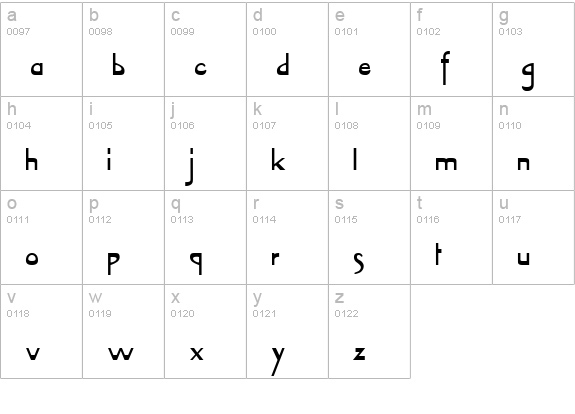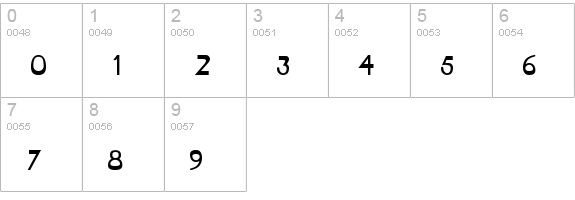
Tablet Bold is a strong, high-contrast variant in the Tablet typeface family \xE2\x80\x94 well suited to headlines, attention-grabbing titles, and strong calls-to-action.
Introducing Tablet Bold, the ultimate font choice for those seeking a modern and bold aesthetic. With its strong and commanding presence, Tablet Bold effortlessly captures attention and leaves a lasting impression. This versatile font is perfect for a wide range of design projects, from eye-catching headlines to impactful logos and branding materials. Tablet Bold exudes confidence and professionalism, making it an ideal choice for both digital and print media. Its clean lines and carefully crafted letterforms ensure legibility, while the bold weight adds an extra layer of impact. Whether used in a sleek website design or a high-quality print publication, Tablet Bold will elevate your project to new heights. What sets Tablet Bold apart is its availability for free download at FontsMarket.com. Yes, you read that right! This stunning font can be yours, completely free of charge. FontsMarket.com, a trusted source for high-quality fonts, is proud to offer Tablet Bold to designers and creatives worldwide, enabling them to bring their visions to life without breaking the budget. So, why wait? Take advantage of this incredible opportunity and download Tablet Bold today from FontsMarket.com. Unleash your creativity and make a bold statement with this exceptional font that is just a click away. Don't miss out on the chance to enhance your design projects with the power and elegance of Tablet Bold. Get it now and let your imagination run wild!